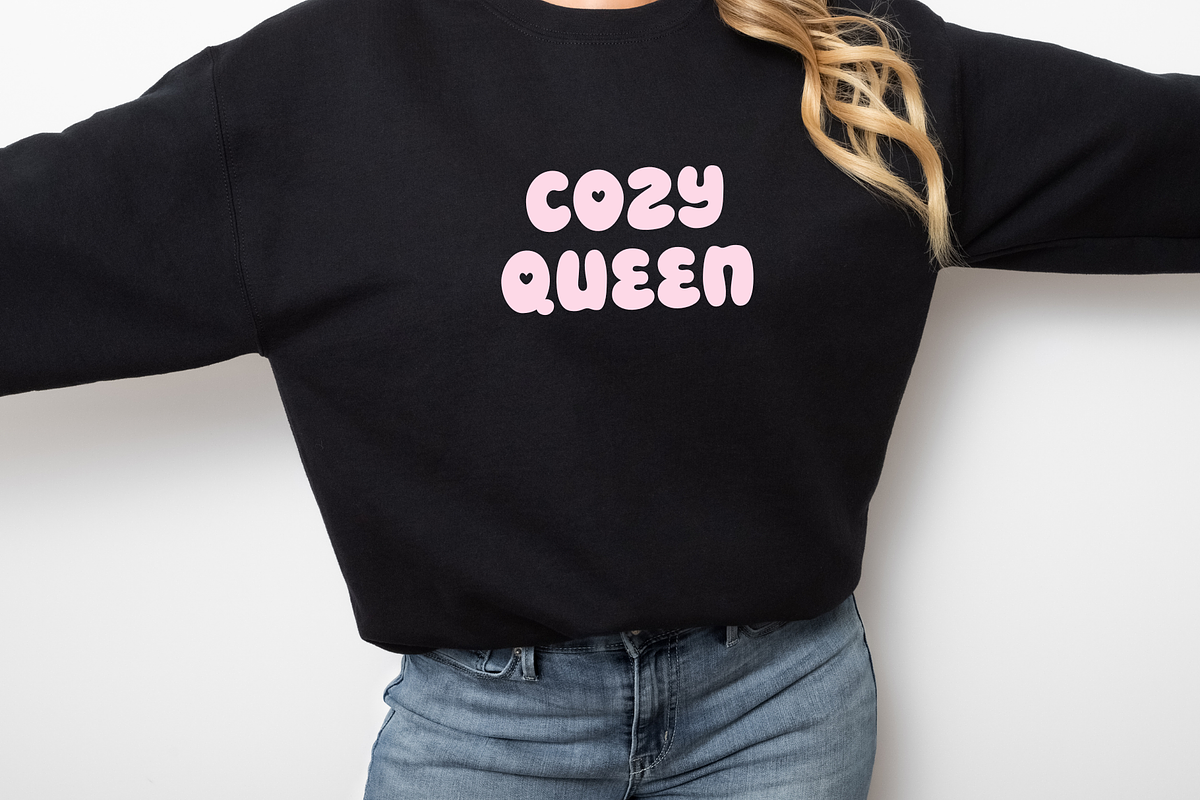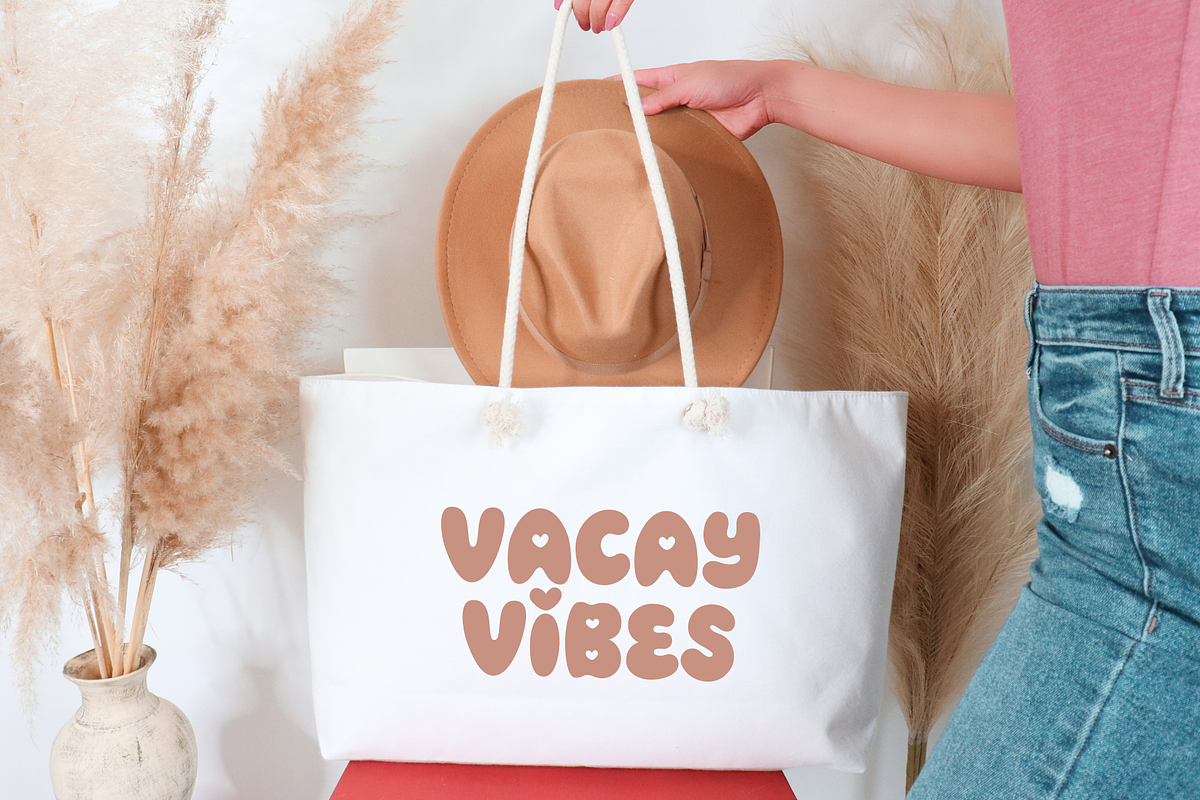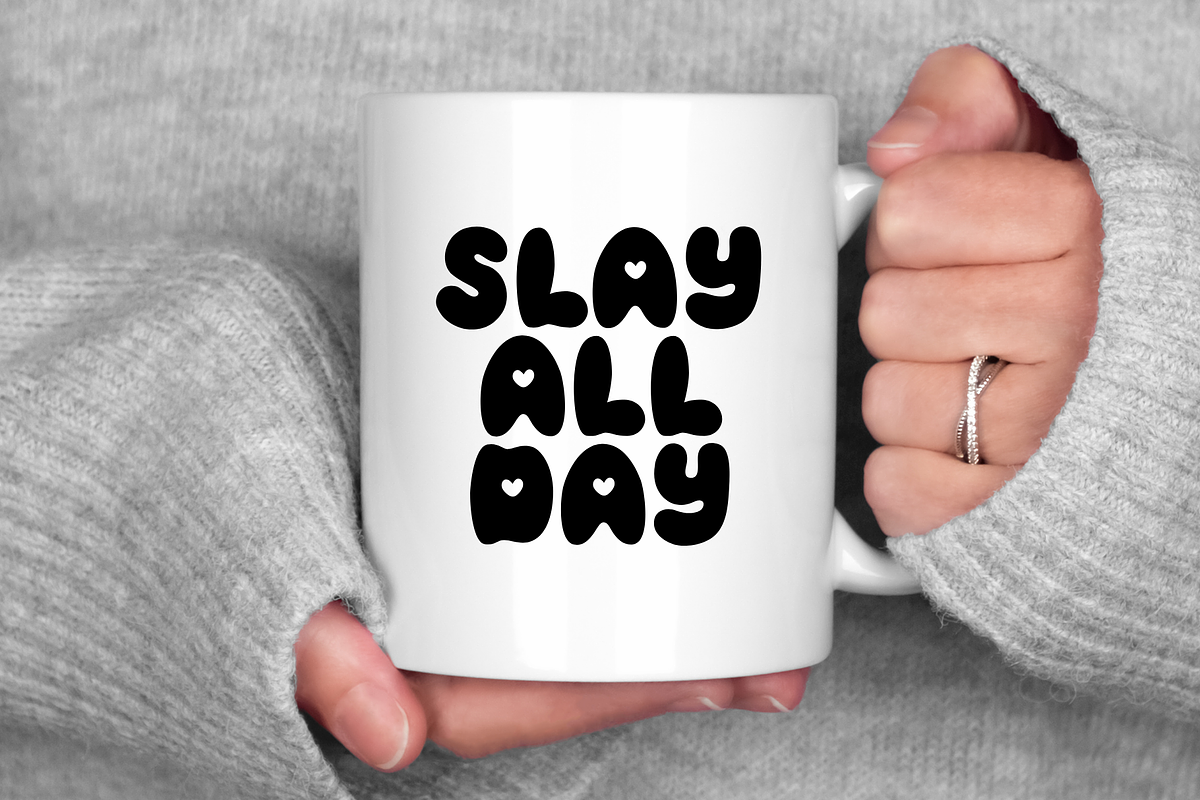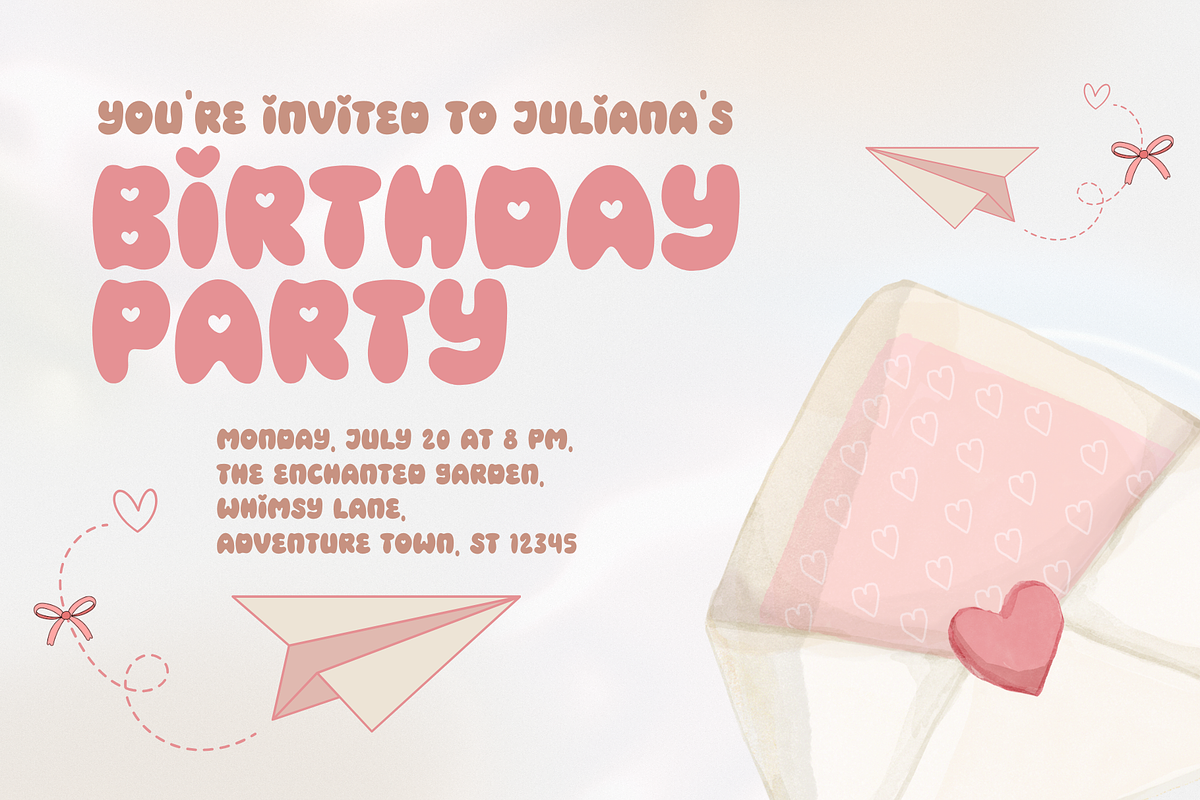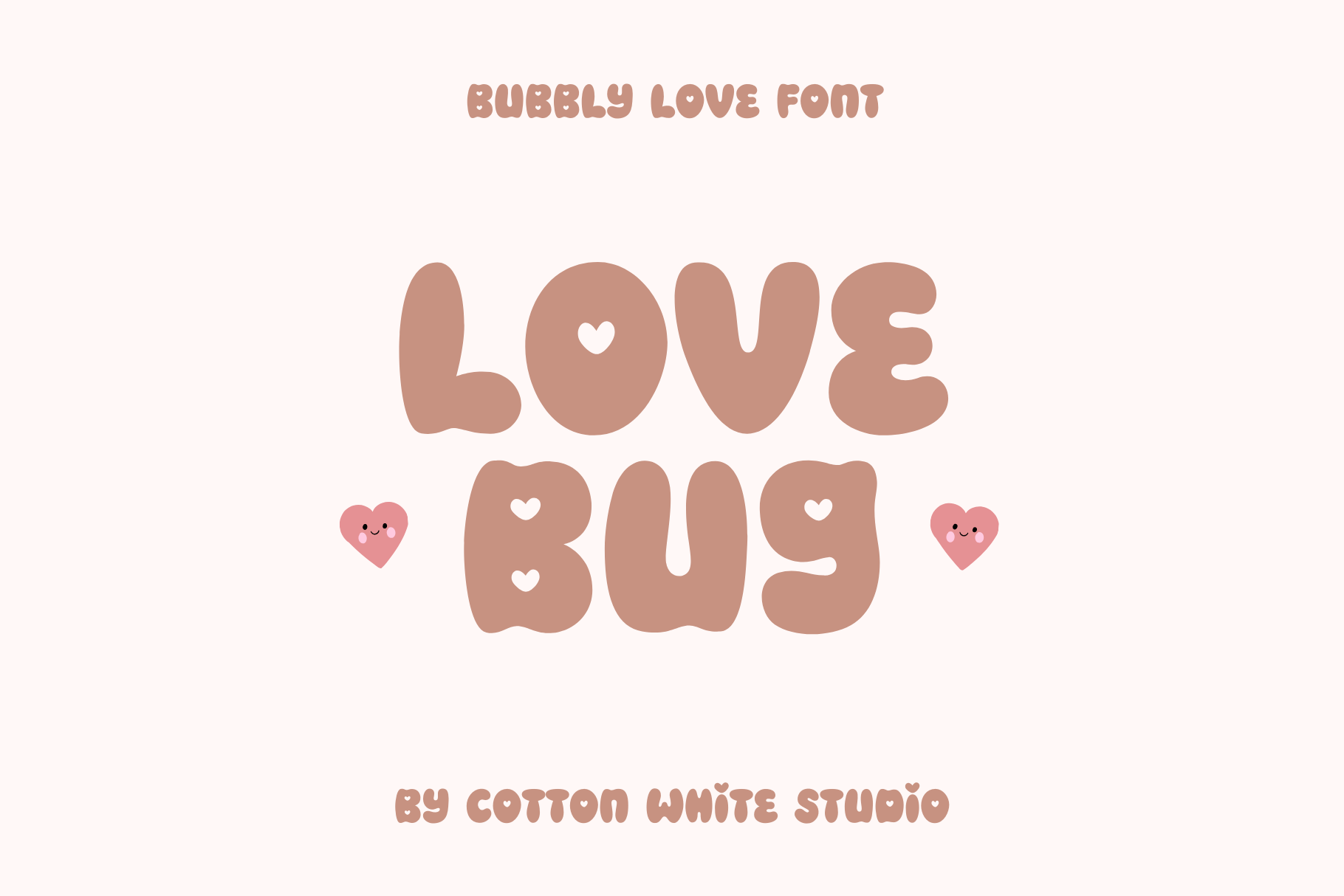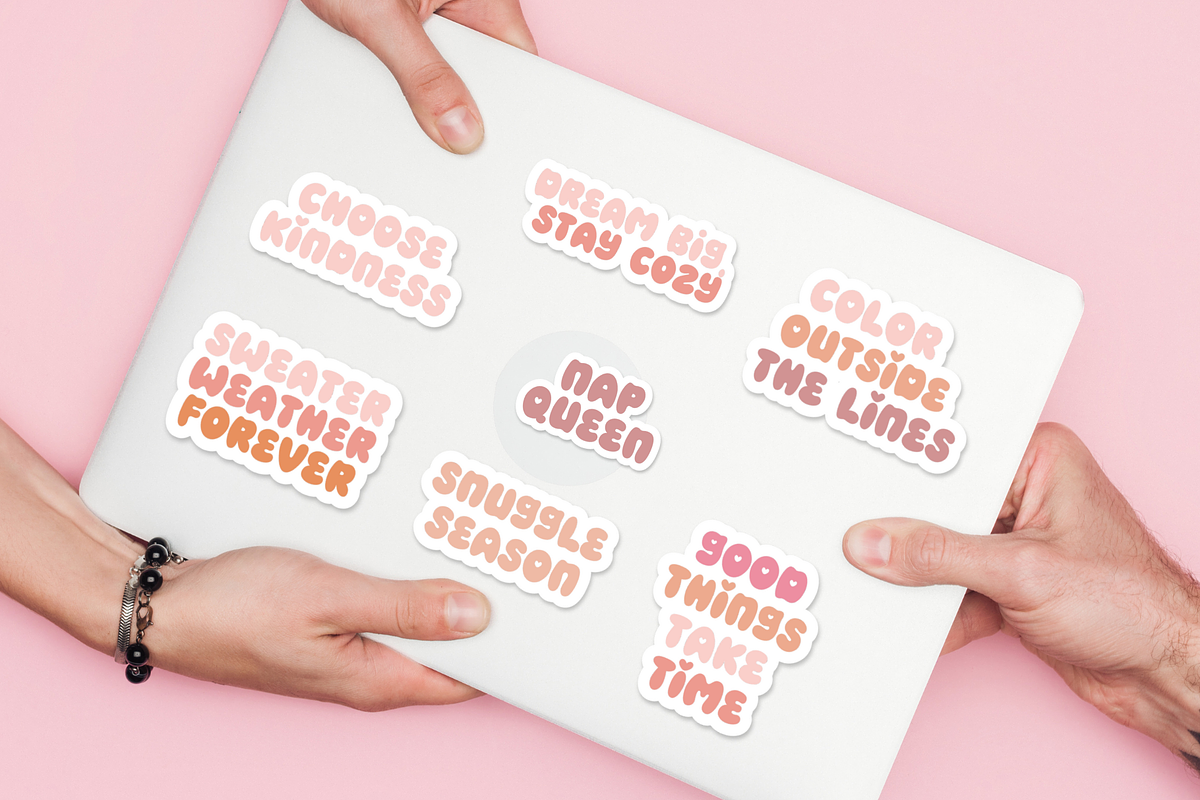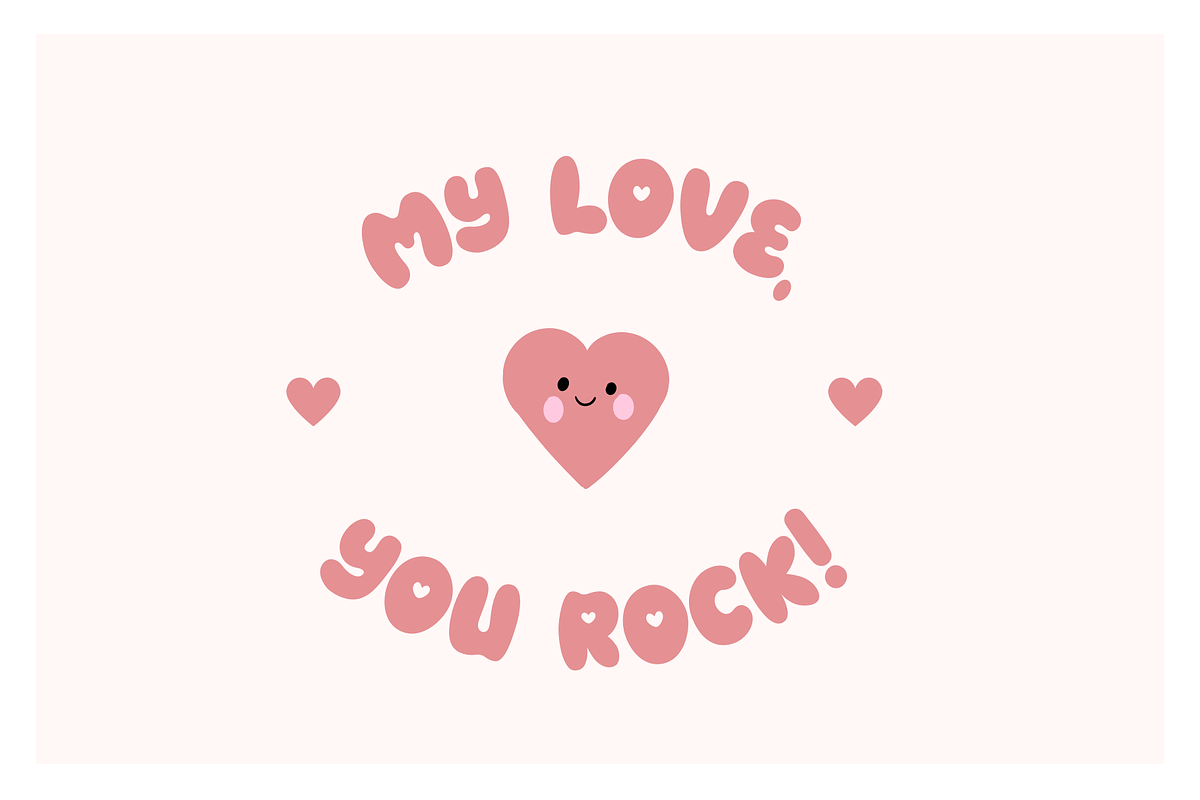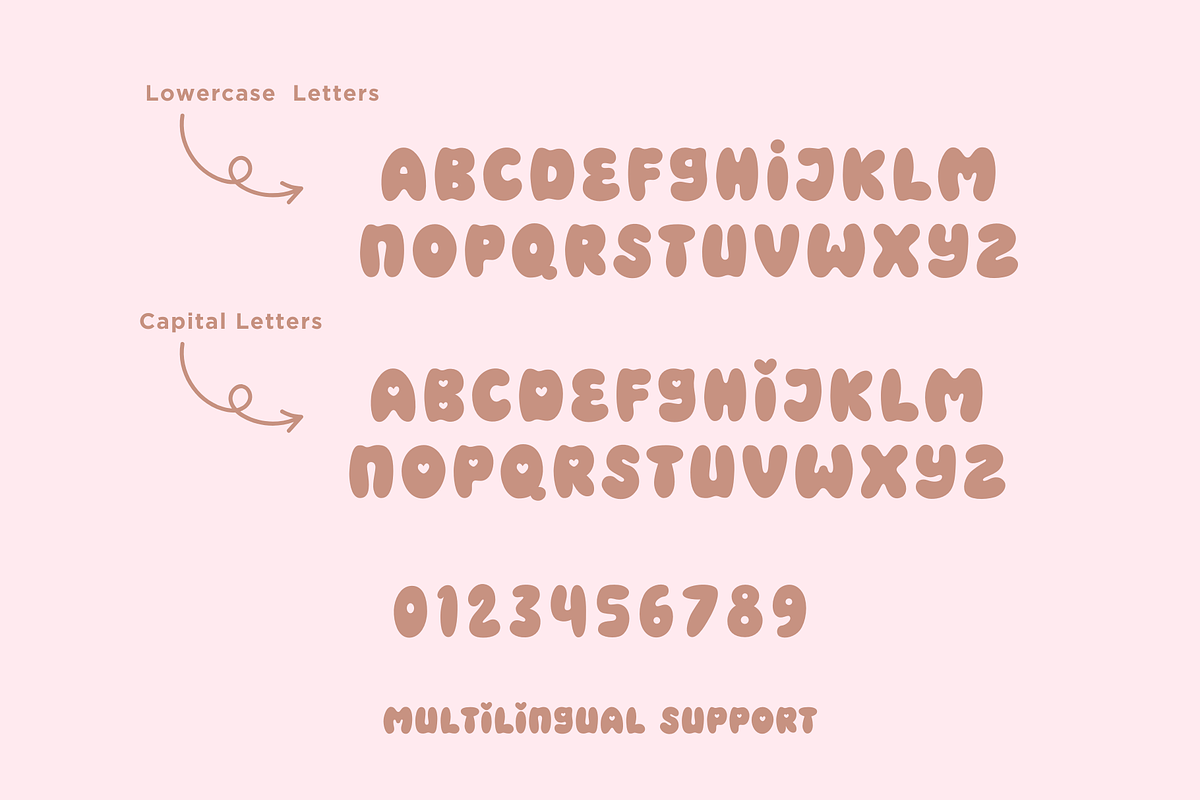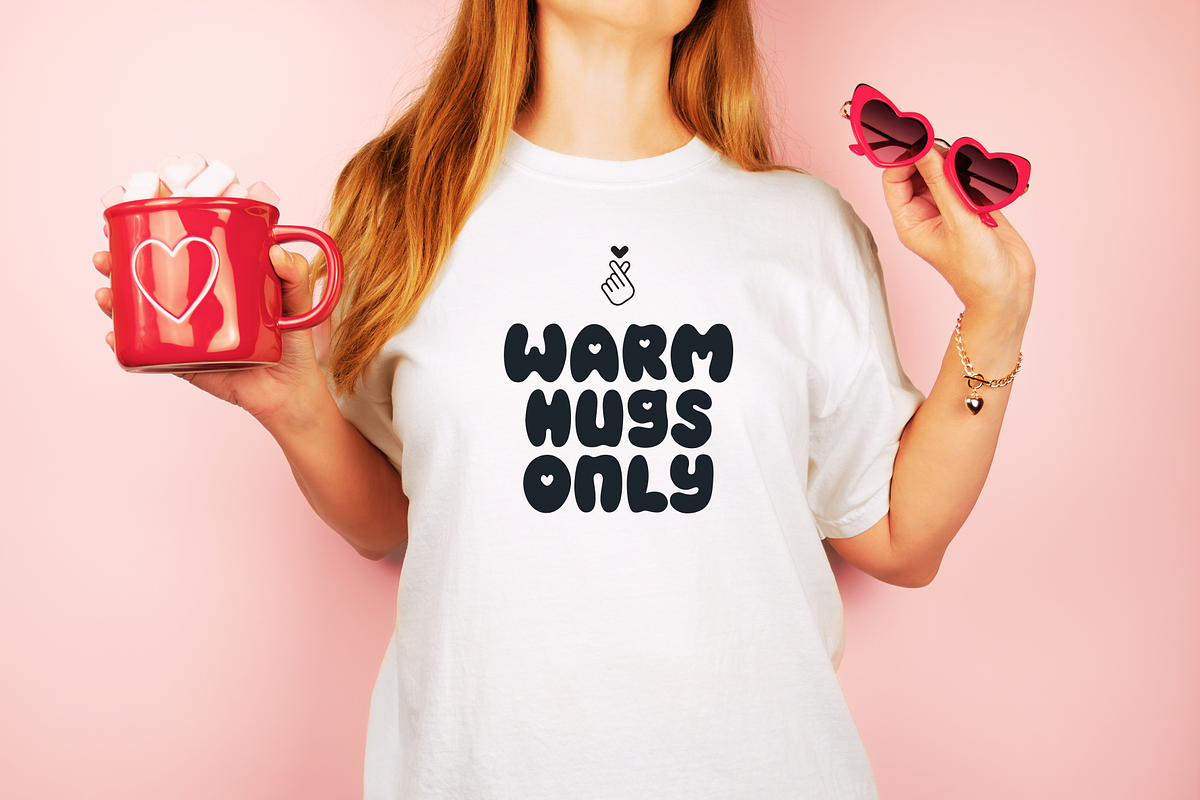
Love Bug Cute Font
Love Bug is an all-caps font with alternative letters decorated with hearts. It's a retro and playful typeface that's perfect for creating fun, romantic designs, posters, apparel, greeting cards, social media posts, or any creative project that needs a little extra sweetness.